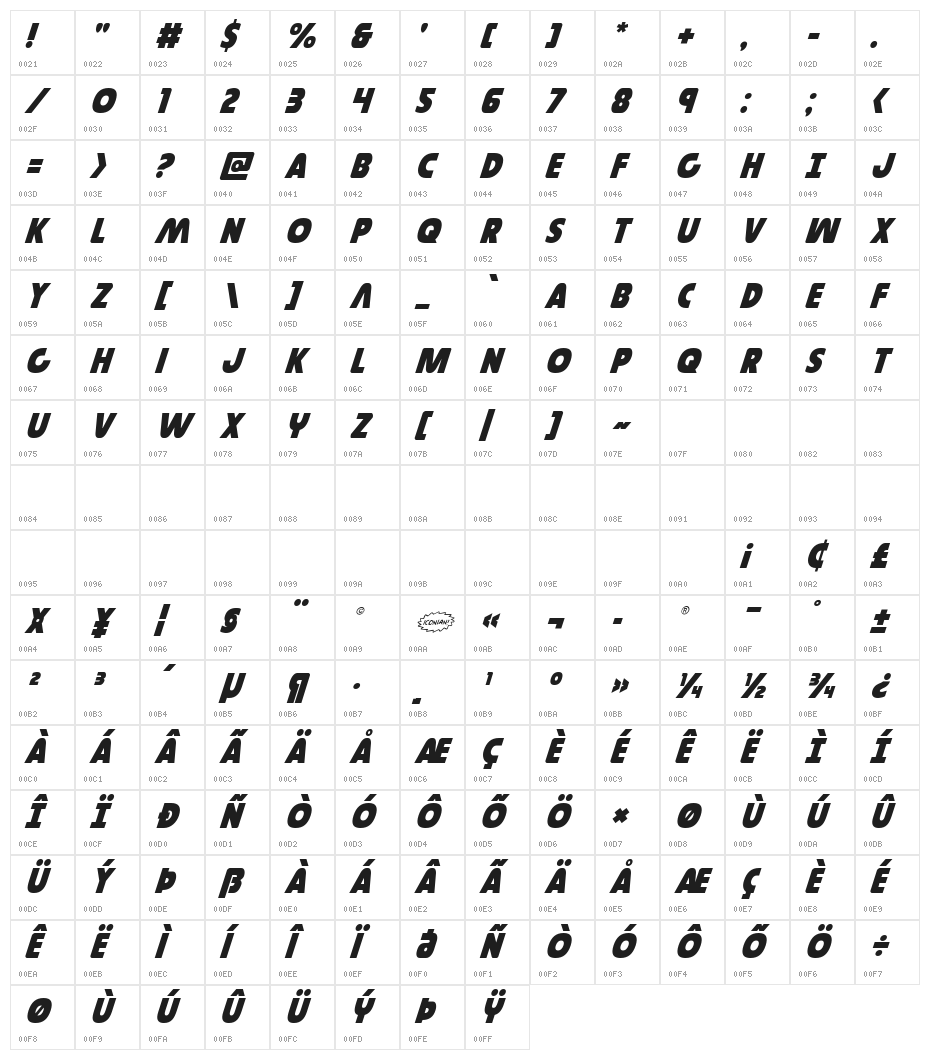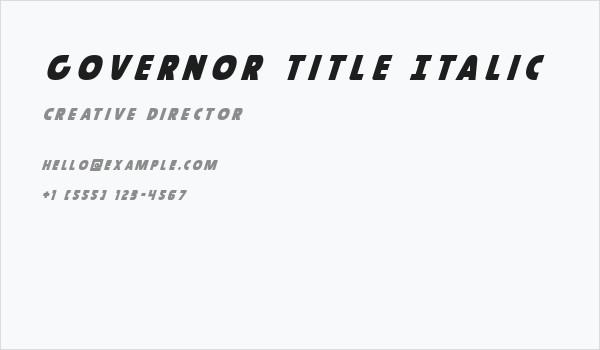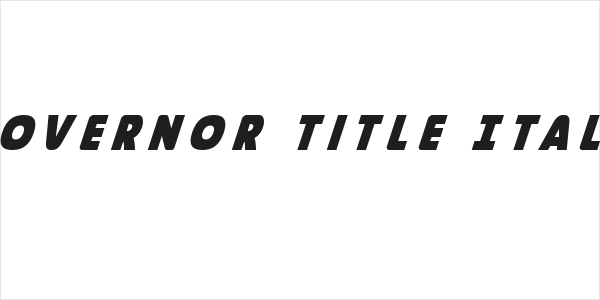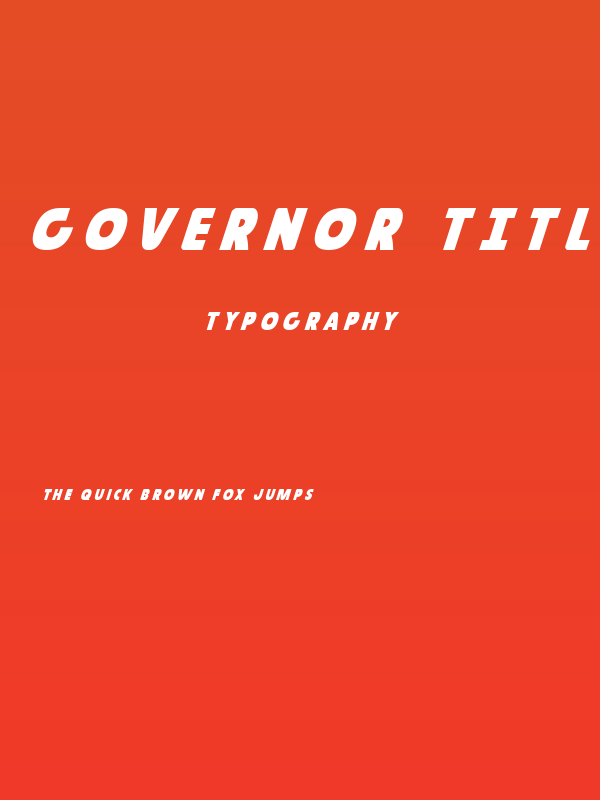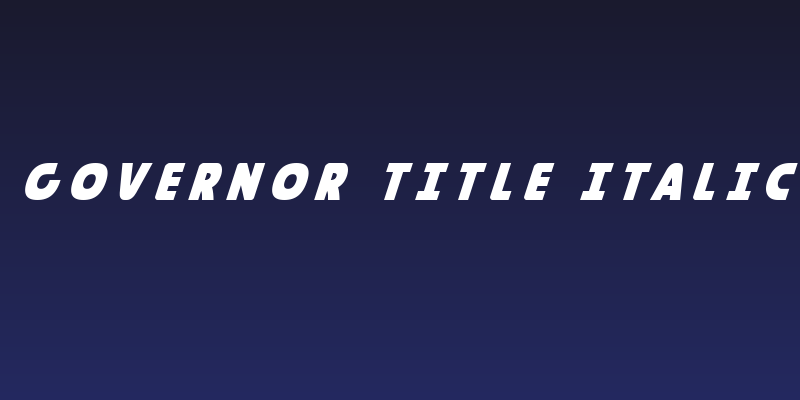
Governor Title Italic Font
Governor Title Italic Description
This font features a bold and dynamic style with a strong italic slant, giving it a sense of movement and energy. The characters are thick and robust, with a slight curvature that adds a touch of playfulness. The uppercase and lowercase letters maintain a consistent weight, ensuring readability while still conveying a sense of urgency and modernity. The numerals are equally bold, making them stand out effectively. Special characters are designed with the same boldness, ensuring they integrate seamlessly with the rest of the typeface. This font is ideal for projects that require a strong visual impact, such as headlines, posters, or branding materials.
| Proposed Projects | Ideal for headlines, posters, branding, and any project requiring a strong visual impact. |